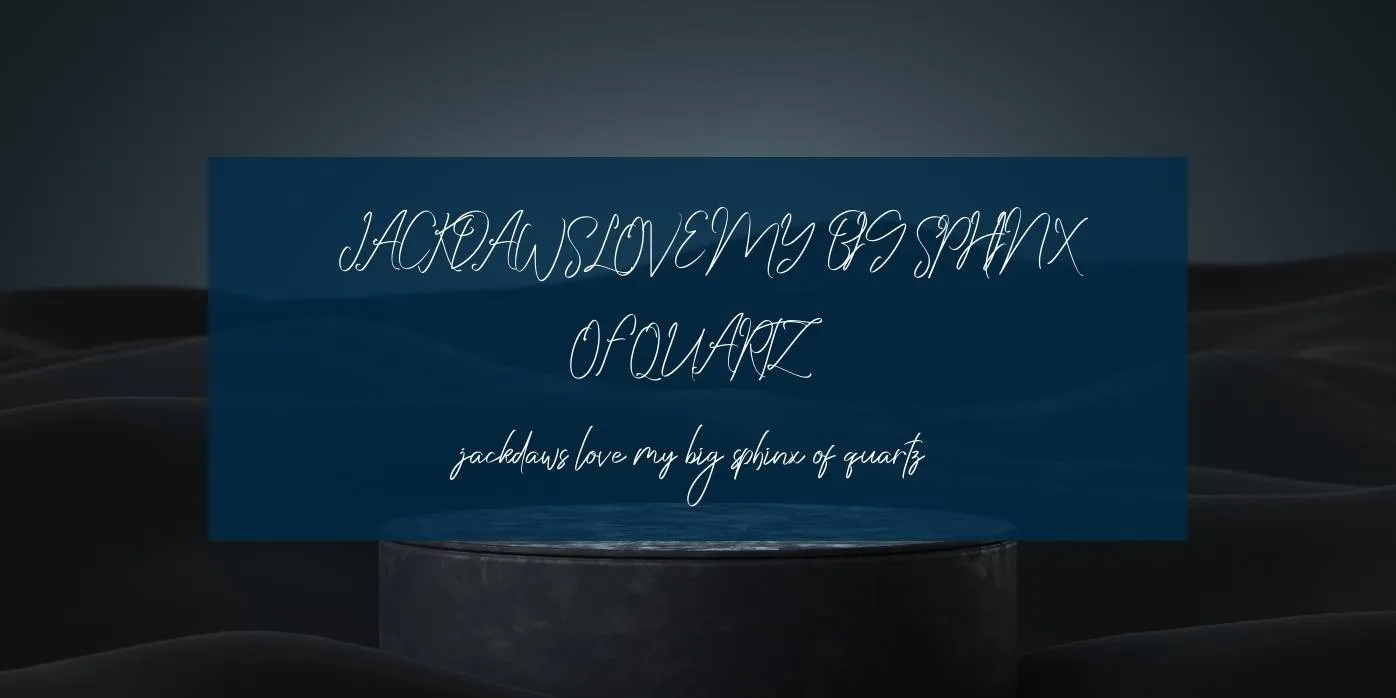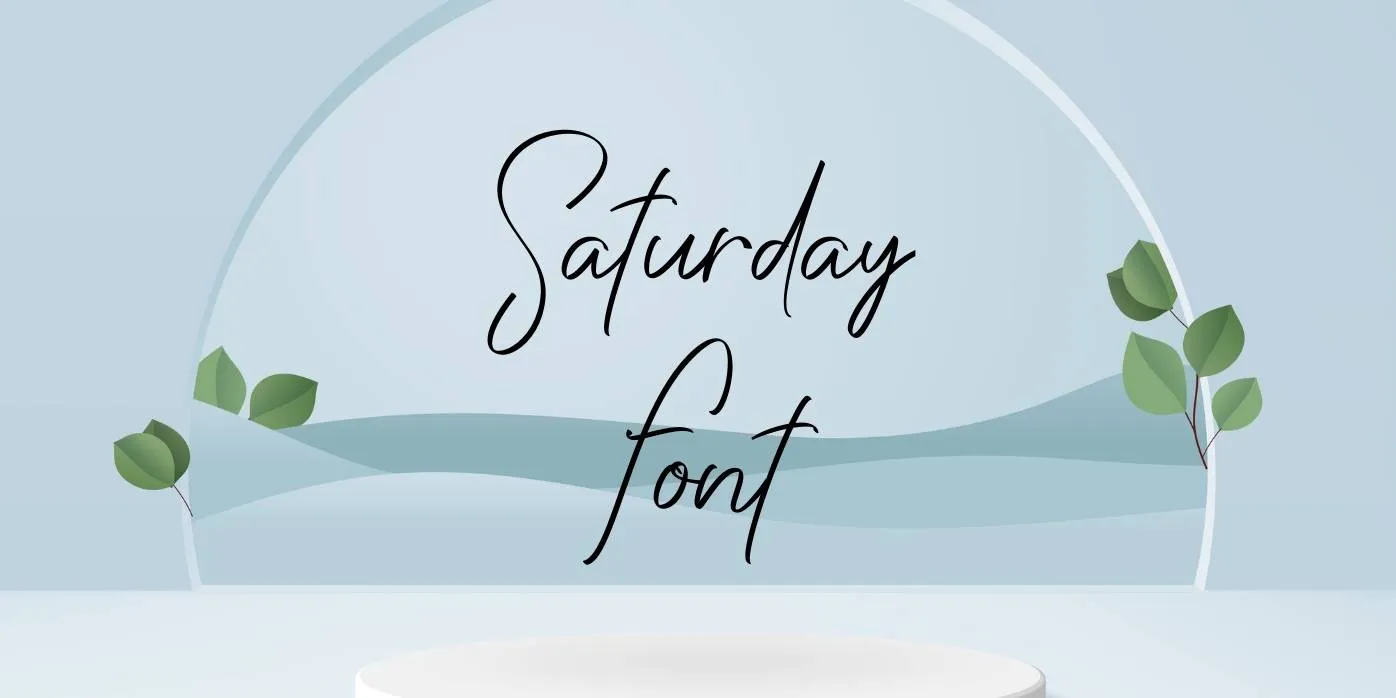
Saturday Font
Today, we are going to present a modern typeface that is known by the name Saturday Font. This typeface belongs to the script font family. This typeface was designed by Hanson Studio. This typeface was first released on 6th May 2016.
The Saturday Font has a very beautiful and attractive texture. This typeface is available in uppercase, lowercase, numerals, and punctuations. This font also supports multilingual characters. You can use this font for various purposes like branding, titles, headlines, quotes, signatures, etc.
For more classic features, you will have to use its alternative castellia font which has the same features. It is not a part of google fonts. This typeface has a unique style that makes it different from other fonts. The designer of this typeface took inspiration from the classic sign painting style.
This typeface is perfect for creating vintage designs. If you are looking for a modern yet vintage font then Saturday Font is the perfect choice for you. This typeface is available in both paid and free versions. Its generator tool is very effective.